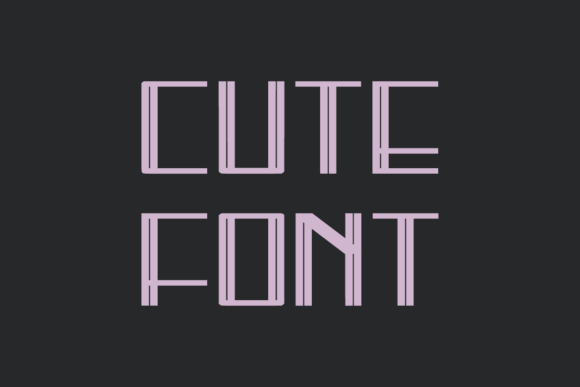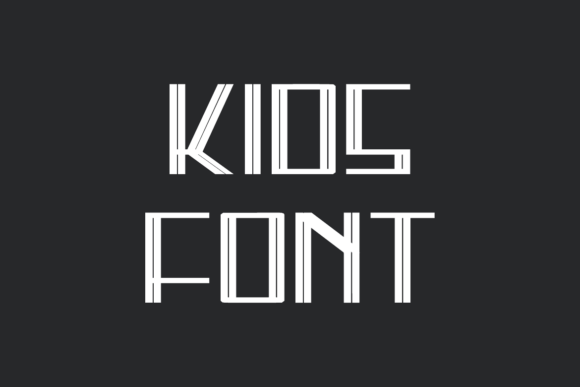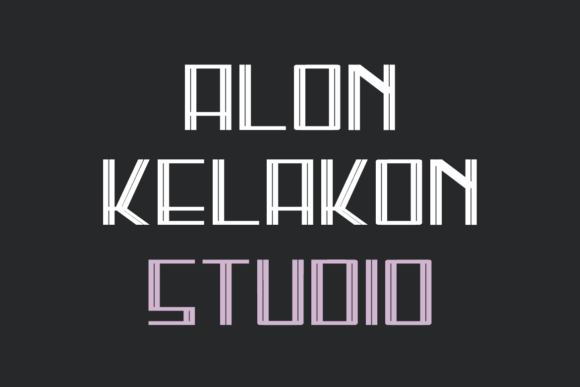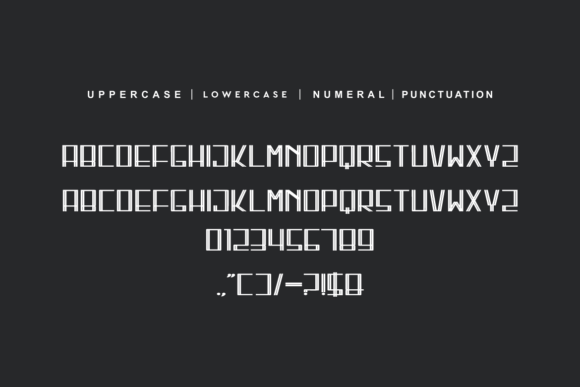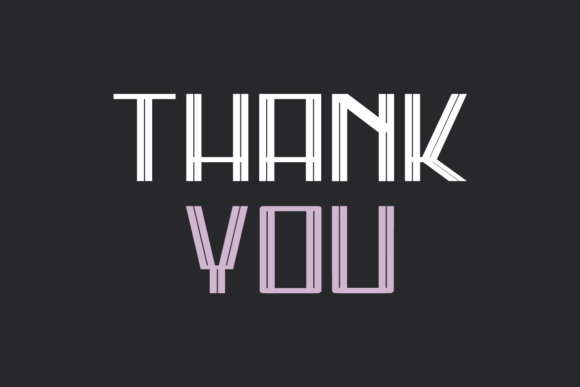
Introduction to Pakseo Font
Pakseo Font is an unique sans serif font.
Ready to use for labeling, clothing, movie scenes, posters, movie titles, gigs, album covers, logos, and much more .
Key Features of Pakseo Font
Why Choose Pakseo Font?